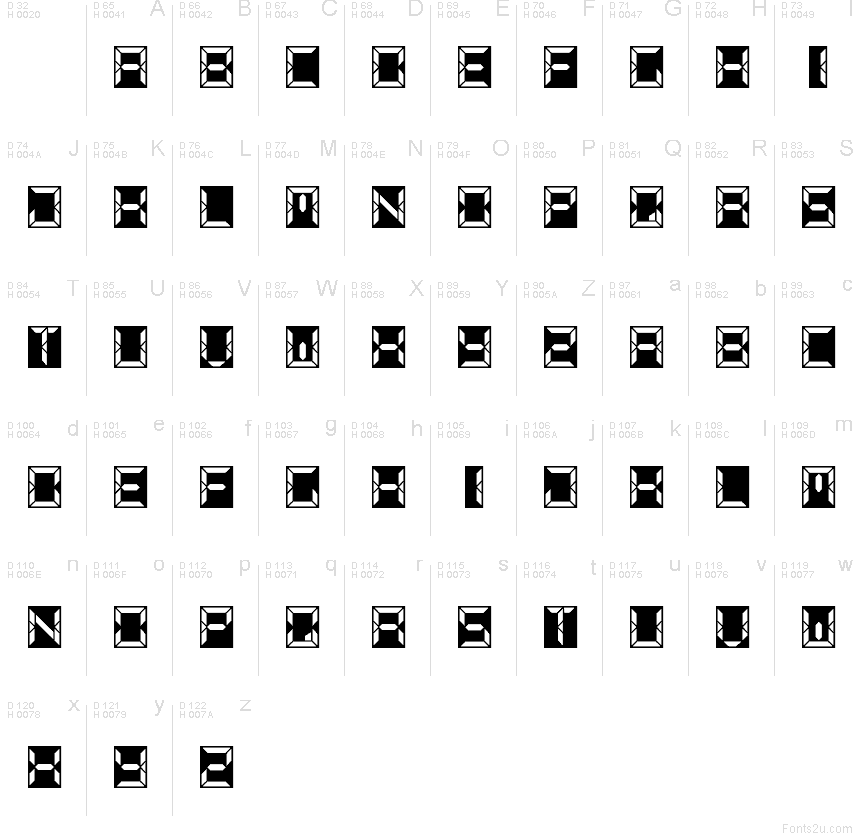
Liquid Crystal Book Regular
Liquid Crystal Book font by Vladimir Nikolic is a free digital display typeface that channels the glow of old LCD screens in crisp, square segments. Its negative “cut-out” look feels like characters punched into a dark monitor, giving text a sharp, high-tech rhythm that’s instantly readable and unmistakably retro-futuristic.
Using Liquid Crystal Book, you can dial in that cool tech vibe for synthwave posters, sci-fi interfaces, gaming overlays, event flyers, scoreboard graphics, or retro app splash screens. This free font shines at larger sizes; pair it with a clean geometric sans in regular weight to handle supporting text.